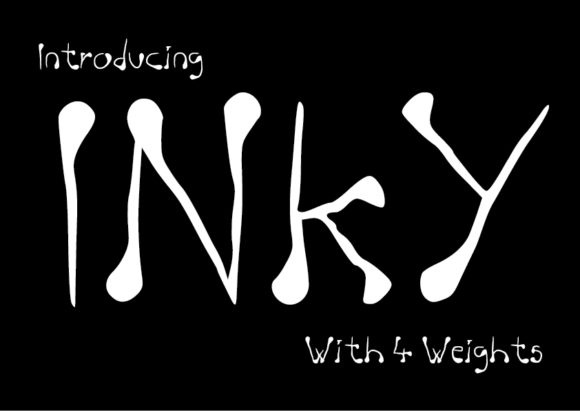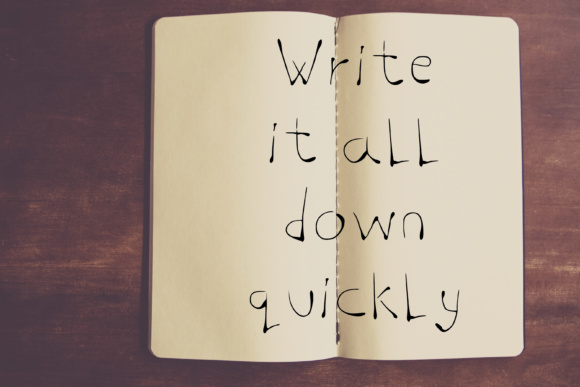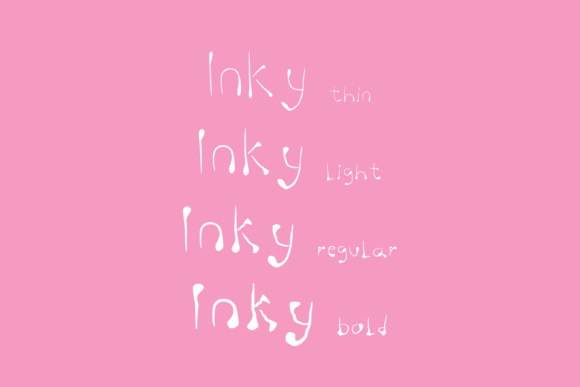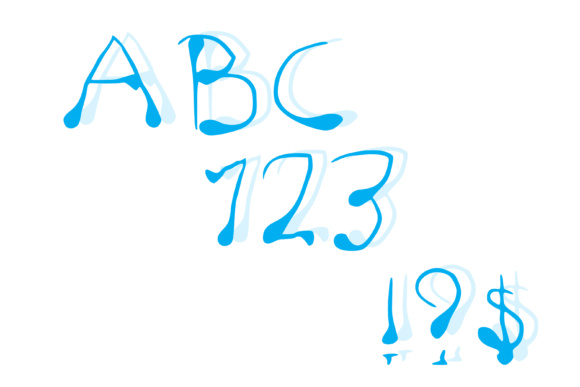
Inky Font
About Inky Font
Inky has been designed by someone using a fountain pen and has been drawing very slowly and stopping at certain points to give then ink a chance to flow and sink into the paper. Slightly unstable, messy font style gives this font lots of character and has a full set of upper and lower alphabet, including numbers, symbols and punctuation. Use for a hand written style displays or note making with a messed up twist.